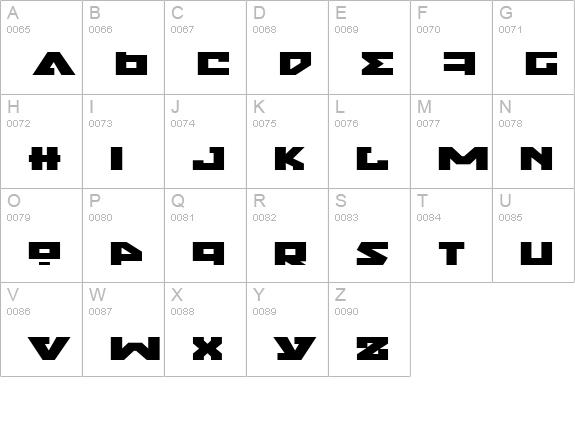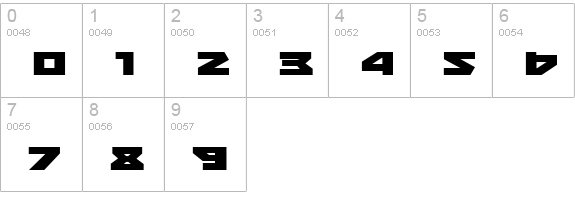
Nyet Expanded is a distinctive, extended-width variant in the Nyet typeface family \xE2\x80\x94 well suited to design and typography projects.
Introducing Nyet Expanded font - a bold and modern typeface that exudes confidence and sophistication. With its sleek lines and sharp edges, Nyet Expanded commands attention and makes a statement. This versatile font is perfect for headlines, logos, branding, and any design project that requires a touch of elegance and strength. What makes Nyet Expanded even more appealing is that it is free to download at FontsMarket.com. That's right, you can add this stunning font to your collection without spending a dime. Don't miss out on this opportunity to elevate your designs with Nyet Expanded - grab your free download today and start creating impactful visuals that stand out from the crowd.